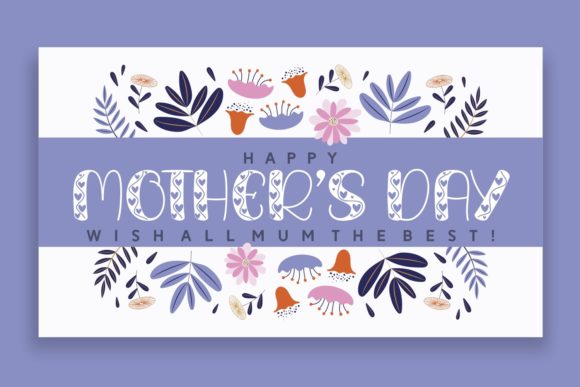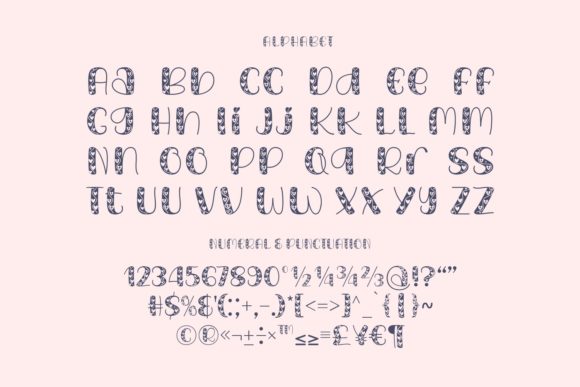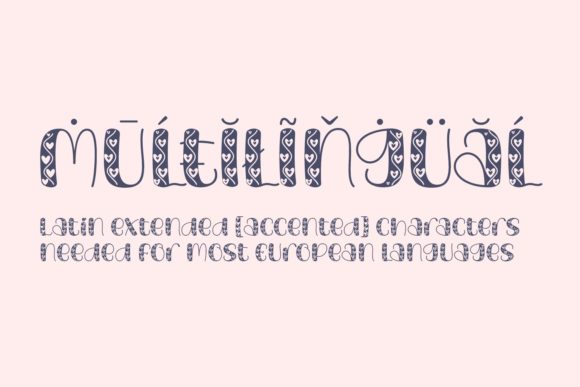
Introduction to Love Triangle Font
Have you ever found yourself stuck in a creative rut, desperately searching for the perfect design element to bring your project to life? That’s exactly what happened to me last week, when I stumbled upon the adorable Love Triangle Font. Its sweet and jolly design, featuring little hearts as ornaments, instantly caught my eye and sparked a wave of inspiration.
As designers, we’re always on the lookout for high-quality design resources that can elevate our creative projects and make them truly stand out. The Love Triangle Font is a valuable addition to any designer’s toolkit, offering a romantic touch that’s perfect for weddings, Valentine’s Day designs, and other projects where love is in the air.
Key Features of Love Triangle Font
- High-quality design: The Love Triangle Font is designed to provide a high-quality and unique look for your design resource.
- Unique characteristics: The Love Triangle Font features a unique blend of modern and vintage elements, making it perfect for creative projects that require a touch of elegance and sophistication.
Honest Review: Love Triangle Font
I recently had the chance to experiment with the Love Triangle Font, a design resource that offers a unique twist on traditional typography. The font’s ability to create a sense of depth and dimensionality is particularly impressive, making it a great addition to any creative project. ✨
One of the standout features of the Love Triangle Font is its versatility. It can be used to add a touch of whimsy to children’s book illustrations or to create a more sophisticated look for a luxury brand. The font’s high quality and transparent background make it easy to integrate into any design. ✨
- Unique and creative design
- Perfect for a variety of design projects
While the Love Triangle Font is an excellent choice for many designers, there are a few limitations to be aware of. ⚠️ For example, the font may not be suitable for projects that require a more formal or traditional look. Additionally, some users may find the font’s unique design style challenging to work with. Overall, however, I would highly recommend the Love Triangle Font to designers looking for a creative and high-quality design resource.
The Love Triangle Font is commonly used in creative projects such as graphic design, digital art, and print design. It’s perfect for creating eye-catching headlines, titles, and graphics with a transparent background. You can also use the font to create custom logos, icons, and branding materials.